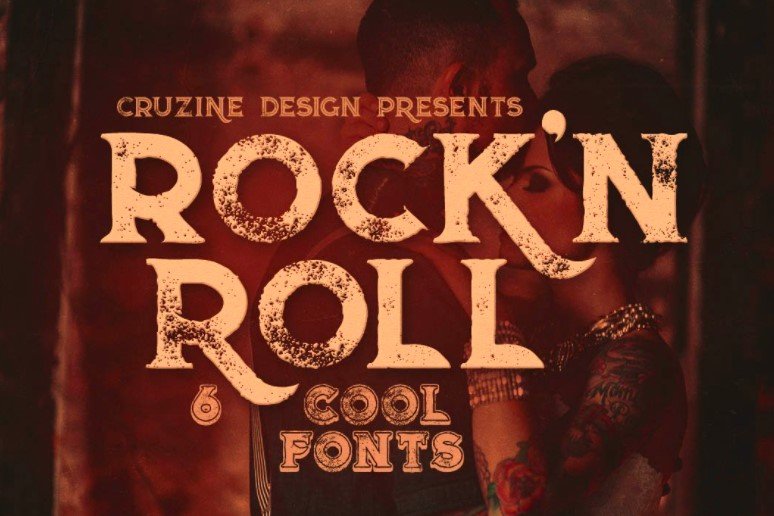
If we talked about the designers, then this font was designed and created by Tigade Std. It can easily accessible in adobe illustrator, adobe photoshop, canva, fotor and other graphic designs software.
By using its super cool features and texture, it can be used to delivering the best designs of your life. It is suitable to use in making book covers, product designs, event card designs, post titling, big headings, youtube videos and in other projects as well. The best thing is that it comes with an opentype license for which you don't have to pay for designed commercial projects.
What's the Closest Font to Rock’n Roll?
The NCAA Michigan Spartans Font is very close to the Rock’n Roll Font.